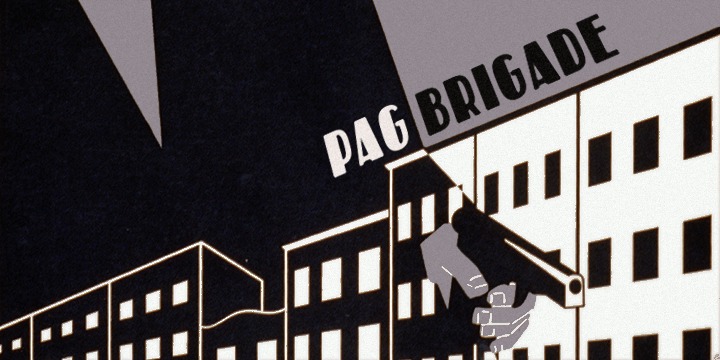
PAG Brigade
Designed by: Ryoichi Tsunekawa
Designed when: 2008
Design owned by: Prop-a-ganda
PAG Brigade
Inspired by retro lettering on advertising & propaganda posters from the 50s to 80s.
This is perfect font for your retrospective project.